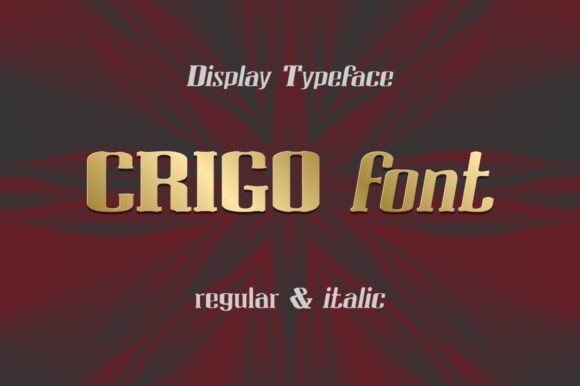
Introducing Crigo Font: A Timeless Serif Retro Font for Your Design Needs
In the world of typography, fonts play a crucial role in conveying the message and aesthetic of a design. With the numerous font options available, it can be challenging to find the perfect one that adds a unique touch to your visual story. However, if you’re looking for a font that exudes classic elegance and vintage charm, look no further than Crigo Font. In this article, we’ll delve into the features and benefits of Crigo, a captivating serif retro font that is sure to elevate your designs.
What is Crigo Font?
Crigo is a thoughtfully crafted serif retro font that brings a touch of nostalgia to your designs. Its distinctive style is reminiscent of classic typography, making it an excellent choice for designers who want to add a vintage flair to their work. Whether you’re creating a logo, brochure, or website, Crigo Font is the perfect choice to make your designs stand out.
Dynamic Styles: Bold and Italic
Crigo Font is available in two dynamic styles: bold and italic. The bold style is perfect for headlines, titles, and emphasis, while the italic style adds a touch of elegance and sophistication to your text. The versatility of Crigo Font makes it an excellent choice for a wide range of design applications, from print to digital media.
A Harmonious Blend of Letters and Numbers
Crigo Font is more than just a collection of alphabets; it’s a harmonious blend of letters and numbers, punctuated with a diverse range of symbols. The font includes a wide range of characters, such as .,;:!?’”()-_[]{} @#$€%^&*+=/|~`, making it a comprehensive font that meets all your design needs.
Benefits of Using Crigo Font in Your Designs
So, why choose Crigo Font for your designs? Here are some benefits of using this captivating serif retro font:
- Classic Elegance: Crigo Font adds an air of classic elegance to any visual story you wish to tell. Its timeless beauty makes it an excellent choice for designs that require a touch of sophistication.
- Vintage Charm: The font’s vintage charm is sure to transport your audience back in time, making it an excellent choice for designs that require a nostalgic feel.
- Versatility: Crigo Font is versatile and can be used in a wide range of design applications, from print to digital media.
- Readability: The font’s clear and readable design makes it easy to read, even in small sizes.
Design Applications for Crigo Font
Crigo Font is suitable for a wide range of design applications, including:
- Logo Design: Use Crigo Font to create a logo that exudes classic elegance and sophistication.
- Print Media: The font is perfect for print media, including brochures, flyers, and posters.
- Digital Media: Crigo Font is also suitable for digital media, including websites, social media graphics, and email marketing campaigns.
- Packaging Design: Use the font to create packaging designs that stand out on store shelves.
Tips for Using Crigo Font Effectively
Here are some tips for using Crigo Font effectively in your designs:
- Pair with Modern Fonts: Pair Crigo Font with modern fonts to create a striking contrast and add visual interest to your design.
- Use Bold and Italic Styles: Use the bold and italic styles of Crigo Font to create visual hierarchy and add emphasis to your text.
- Experiment with Colors: Experiment with different colors to find the perfect combination that complements your design.
In conclusion, Crigo Font is a captivating serif retro font that is sure to elevate your designs. Its classic elegance, vintage charm, and versatility make it an excellent choice for a wide range of design applications. With its harmonious blend of letters and numbers, punctuated with a diverse range of symbols, Crigo Font is the perfect choice to make your designs stand out. So, why wait? Embrace the timeless beauty of Crigo Serif Retro Font and let your creativity shine.